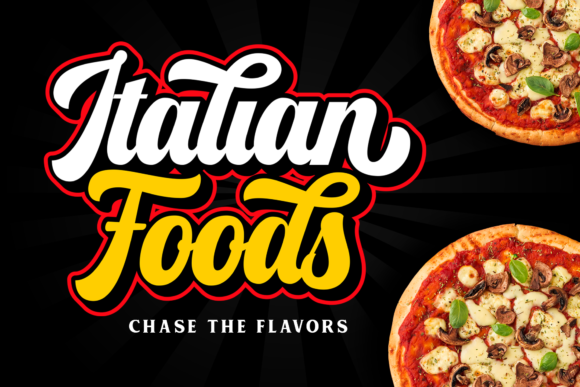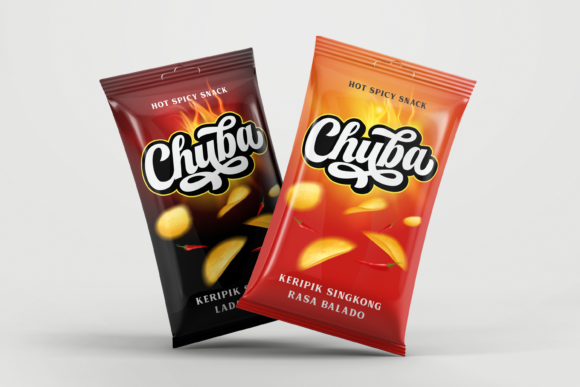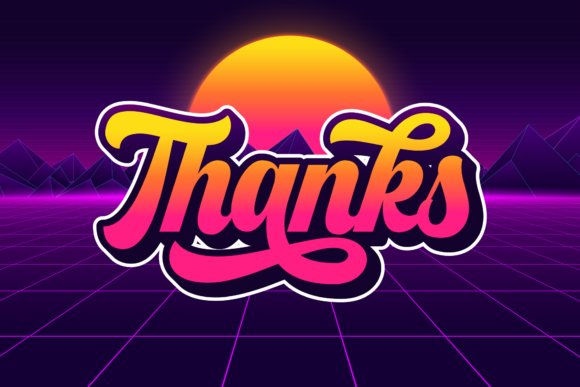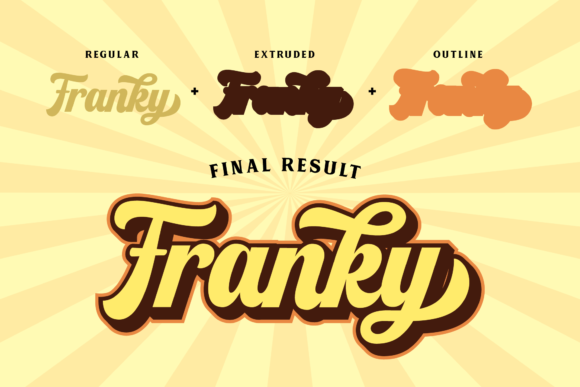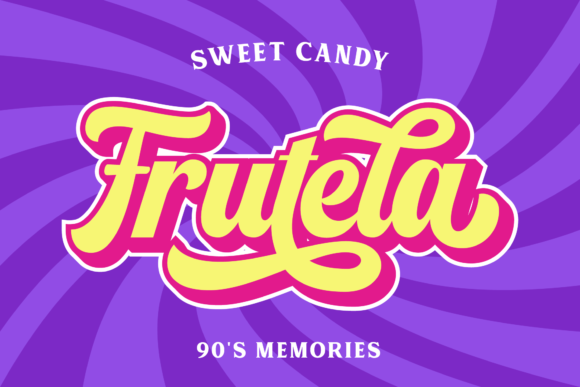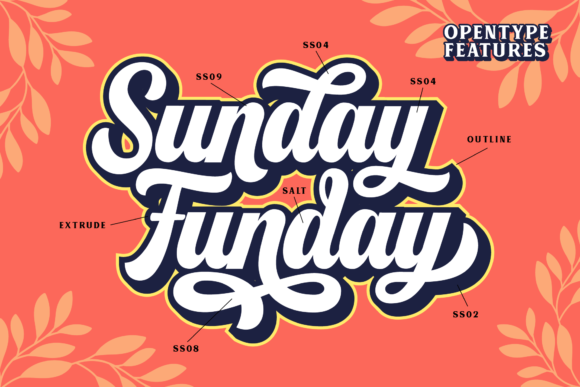
Introduction to Franky Font Font
Fonts play a crucial role in design, and the Franky Font font is a typeface that brings both character and versatility to any project. Whether you’re working on a branding project, a website, or a print design, the Franky Font font offers a unique style that can elevate your work.
Franky is a retro, bold handwritten font with an 80’s style.
This font is PUA encoded which means you can access all of the glyphs and swashes with ease It features a varying baseline, smooth lines, gorgeous glyphs and stunning alternates.
Key Features of Franky Font Font
Why Choose Franky Font Font?
The Franky Font font is more than just a typeface – it’s a design tool that helps you communicate your message with style and clarity. Its unique character set and versatile design make it suitable for a wide range of applications, from elegant invitations to bold headlines.
With its carefully crafted letterforms and balanced proportions, the Franky Font font ensures readability and visual appeal across all mediums.
What makes Franky Font font special?
The Franky Font font stands out with its unique design, exceptional readability, and versatility across various design applications.